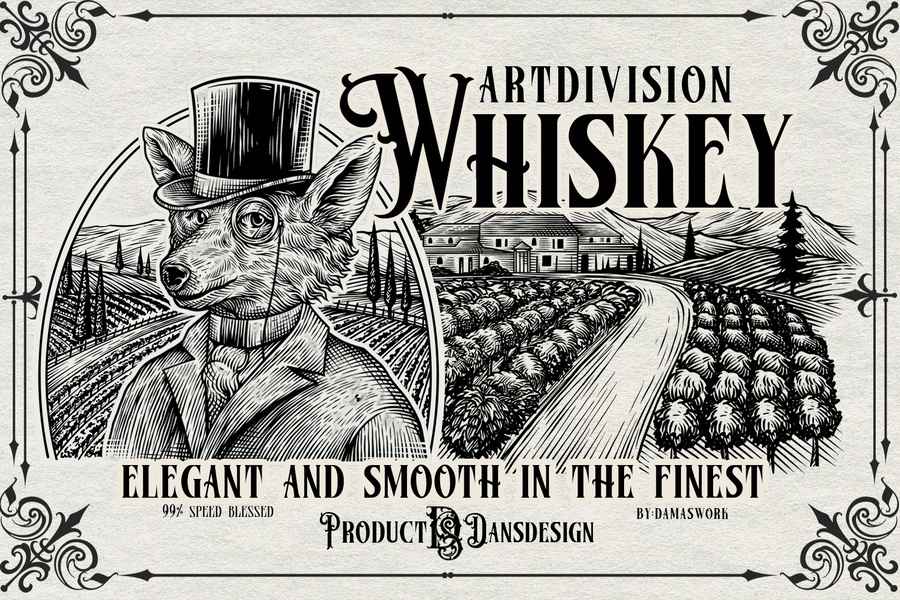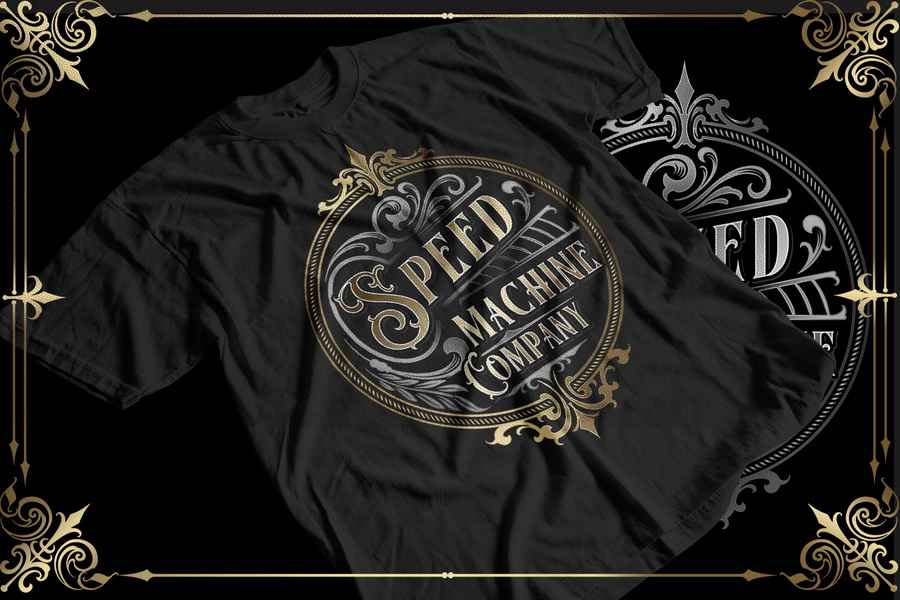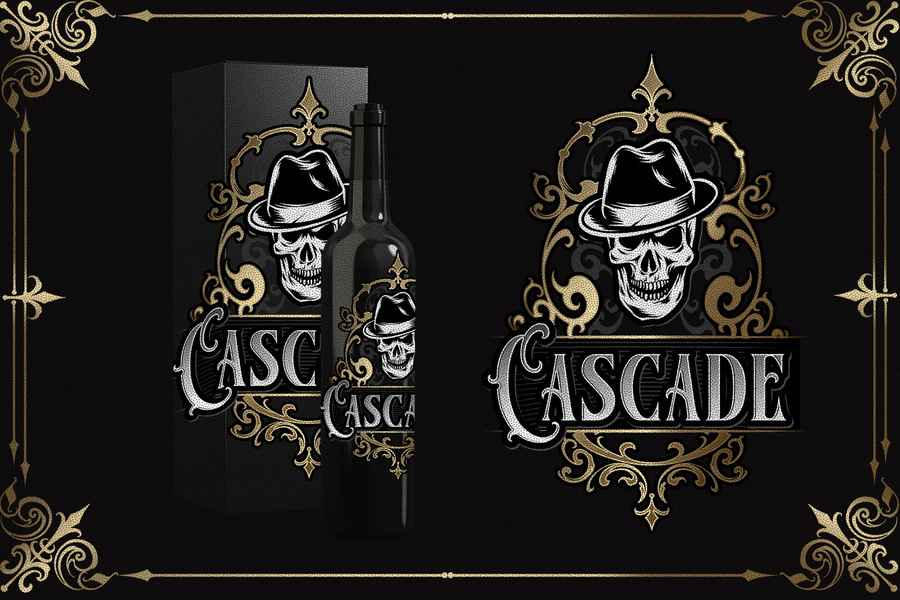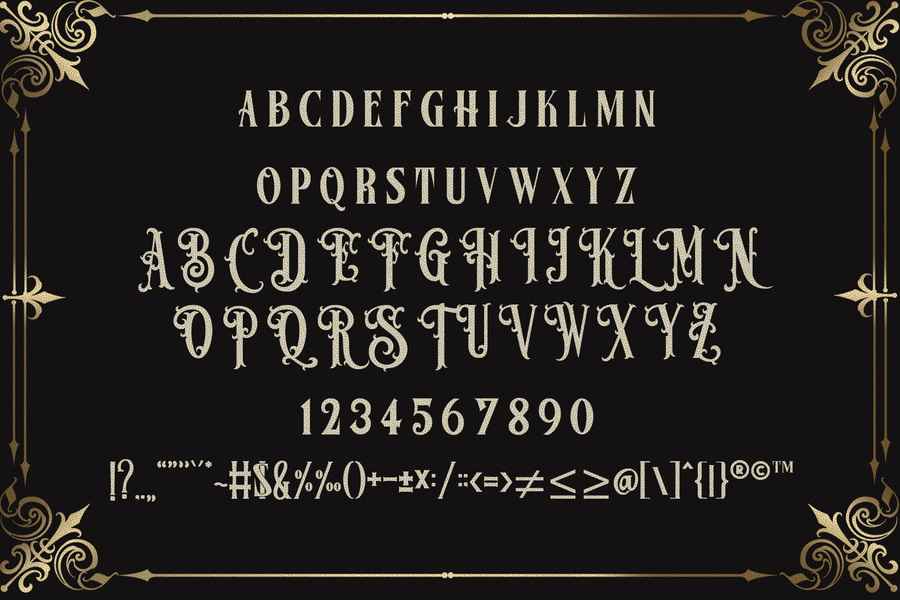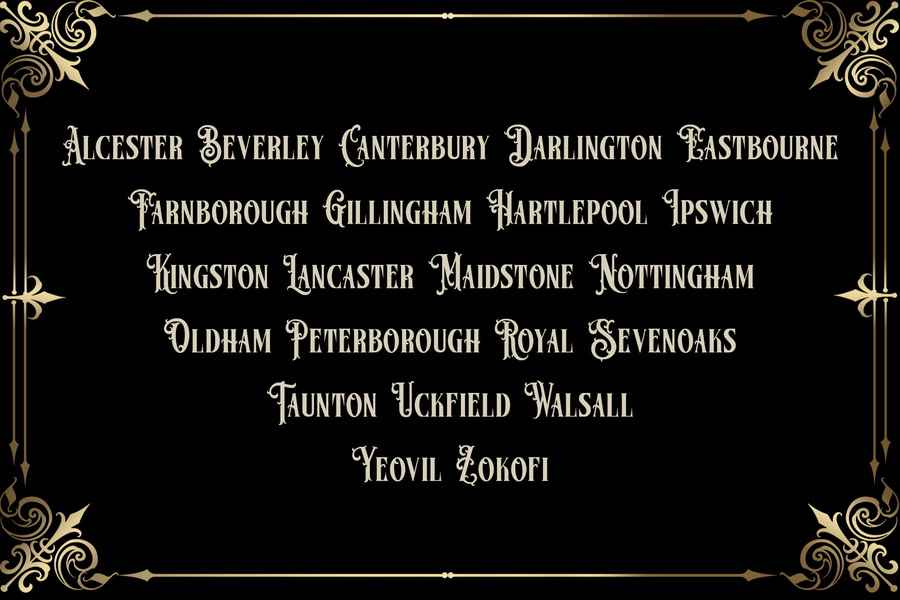
Black Fellas Font Premium
Font ~ Black Fellas | Шрифт ~ Черные парни
About the product: Black Fellas Font Premium
✦ Create gorgeous and timeless designs with Black Fellas Font, an interesting and unique Blackletter Font.
✦ Love its incredibly stylish look and use it to create a product logo, poster name, title, packaging, badge, wedding card logo, clothing brand logo, vintage design and more…